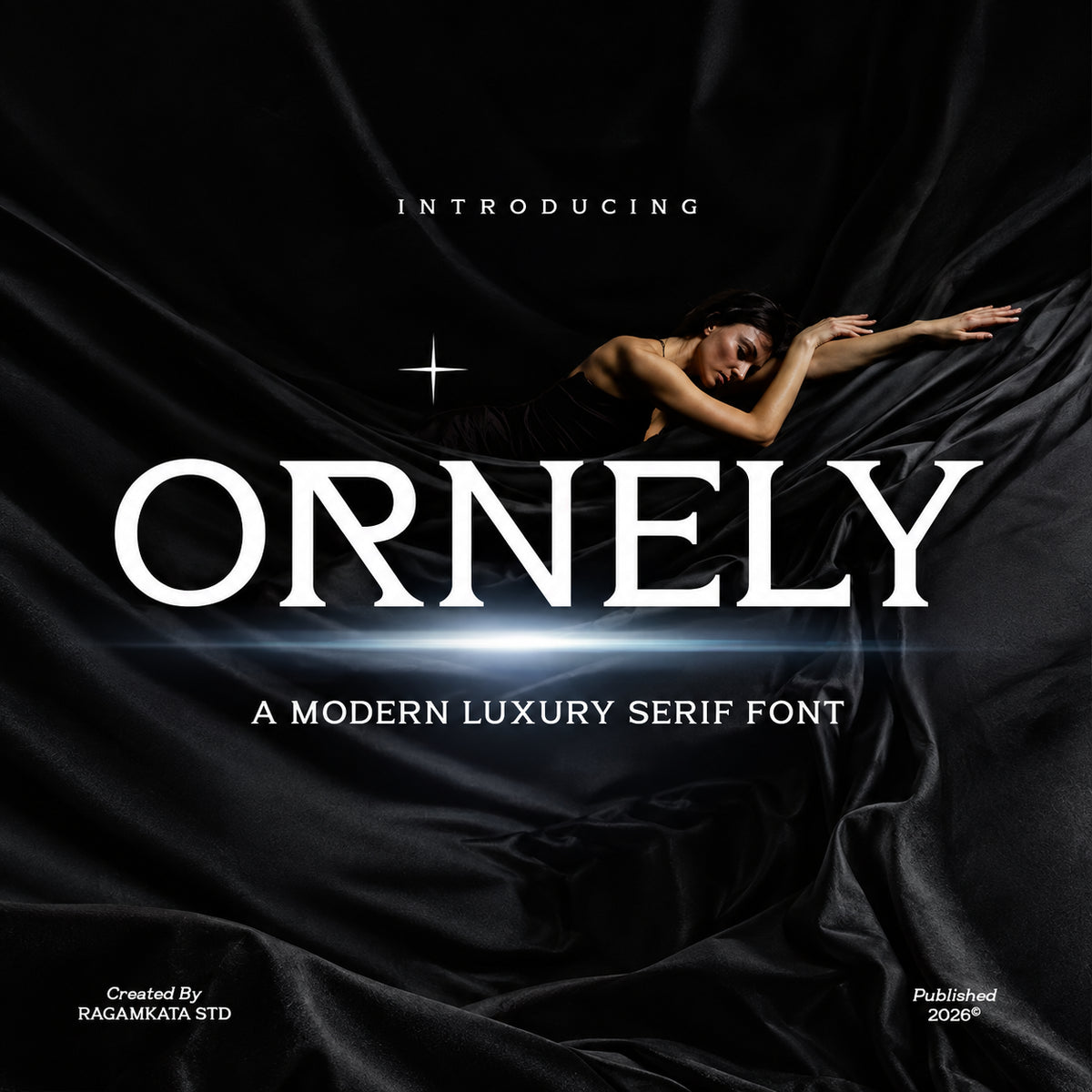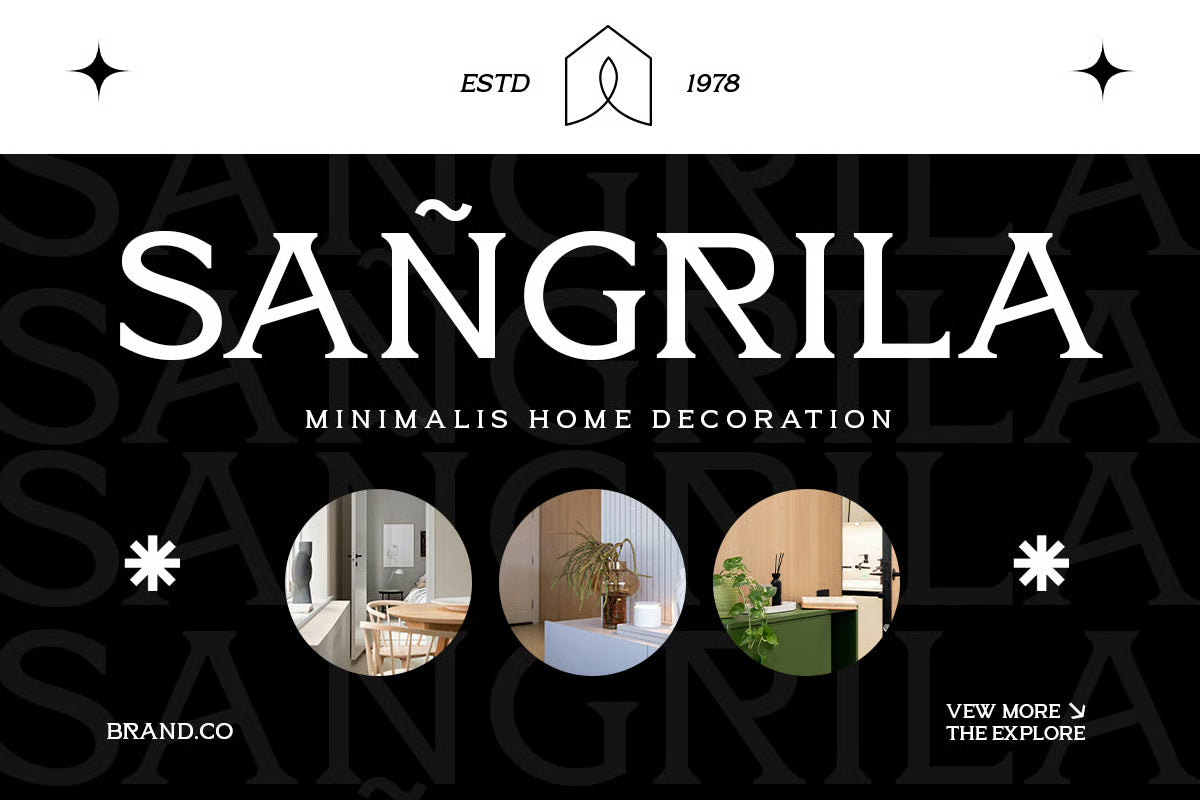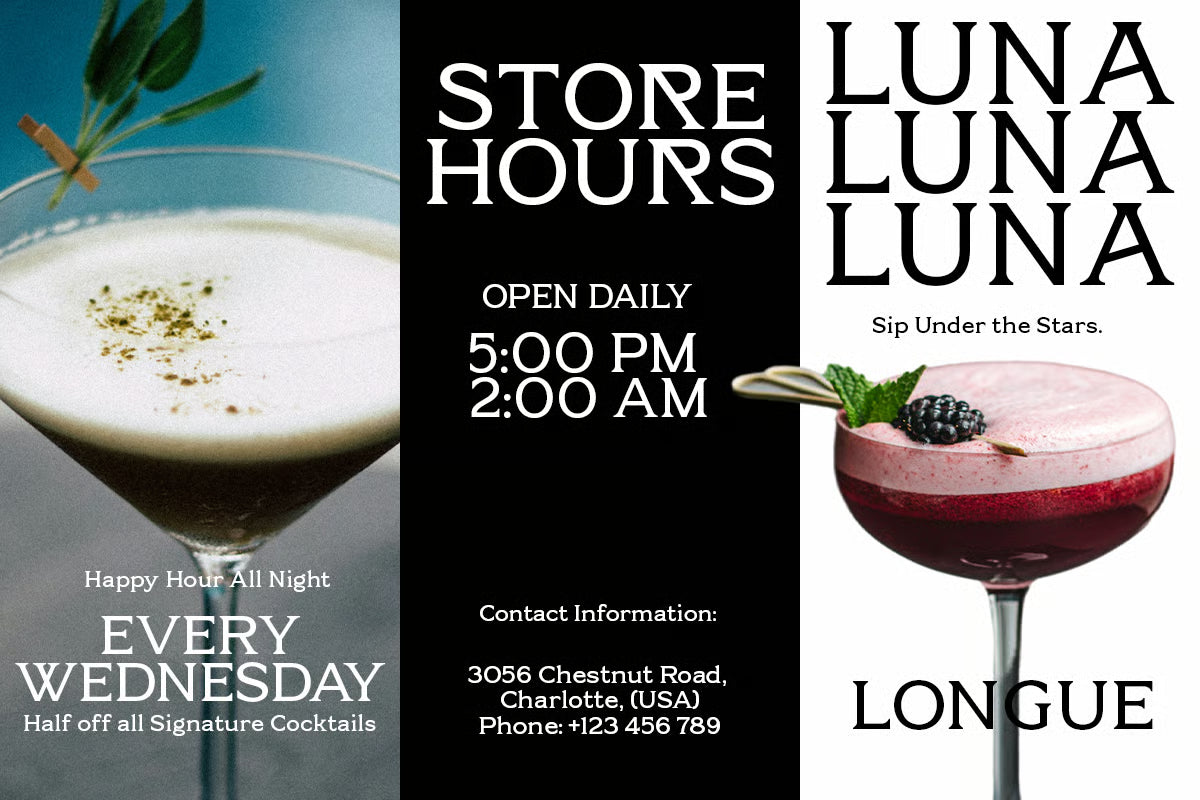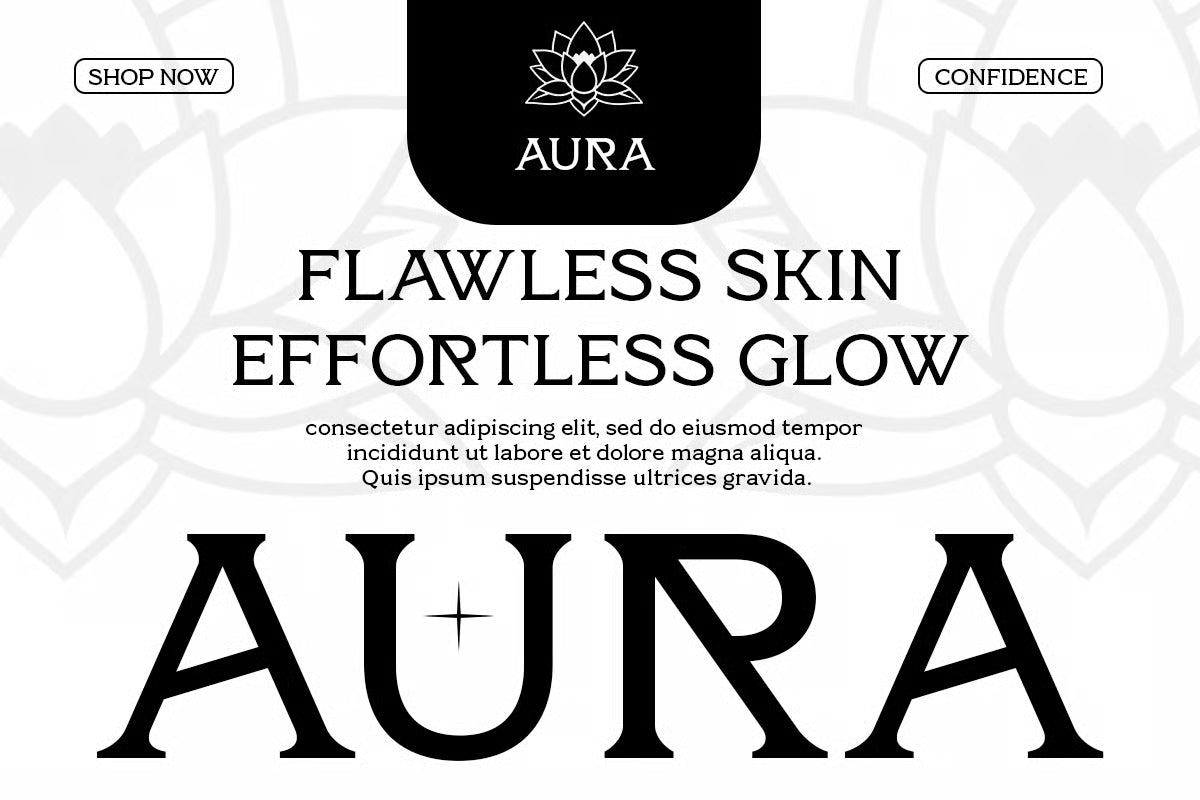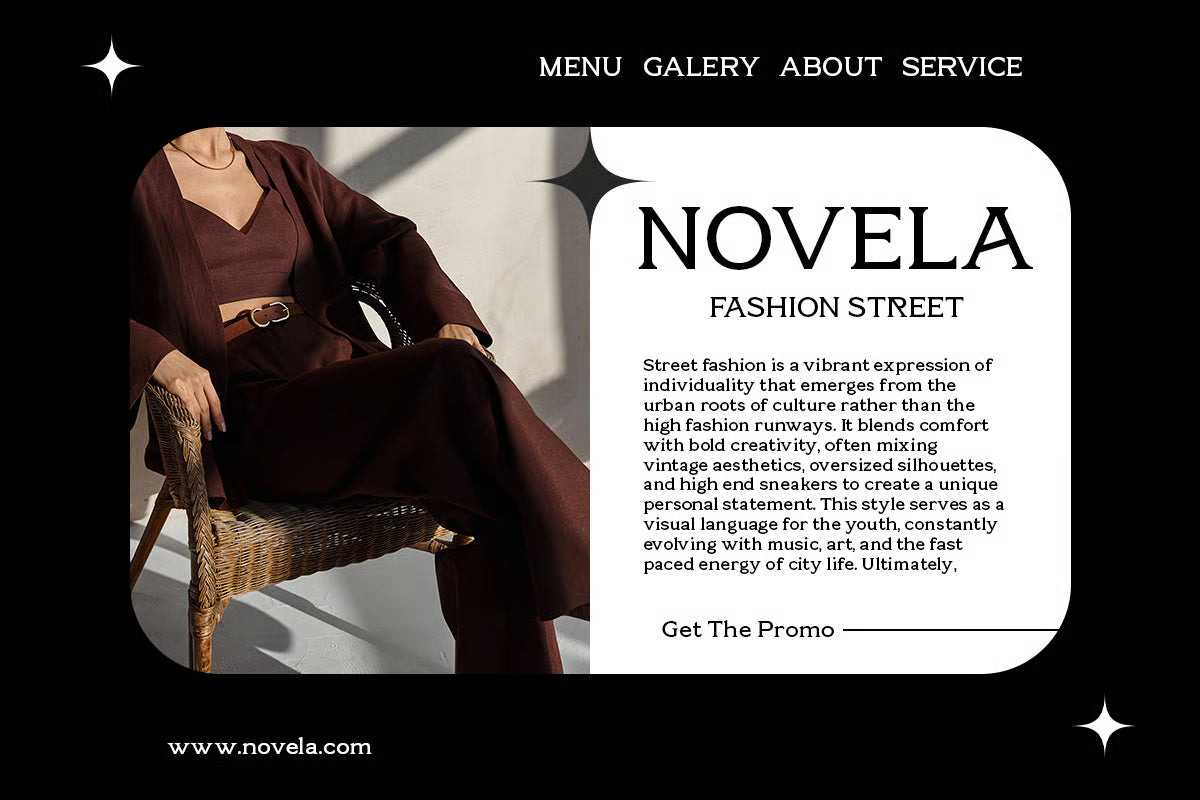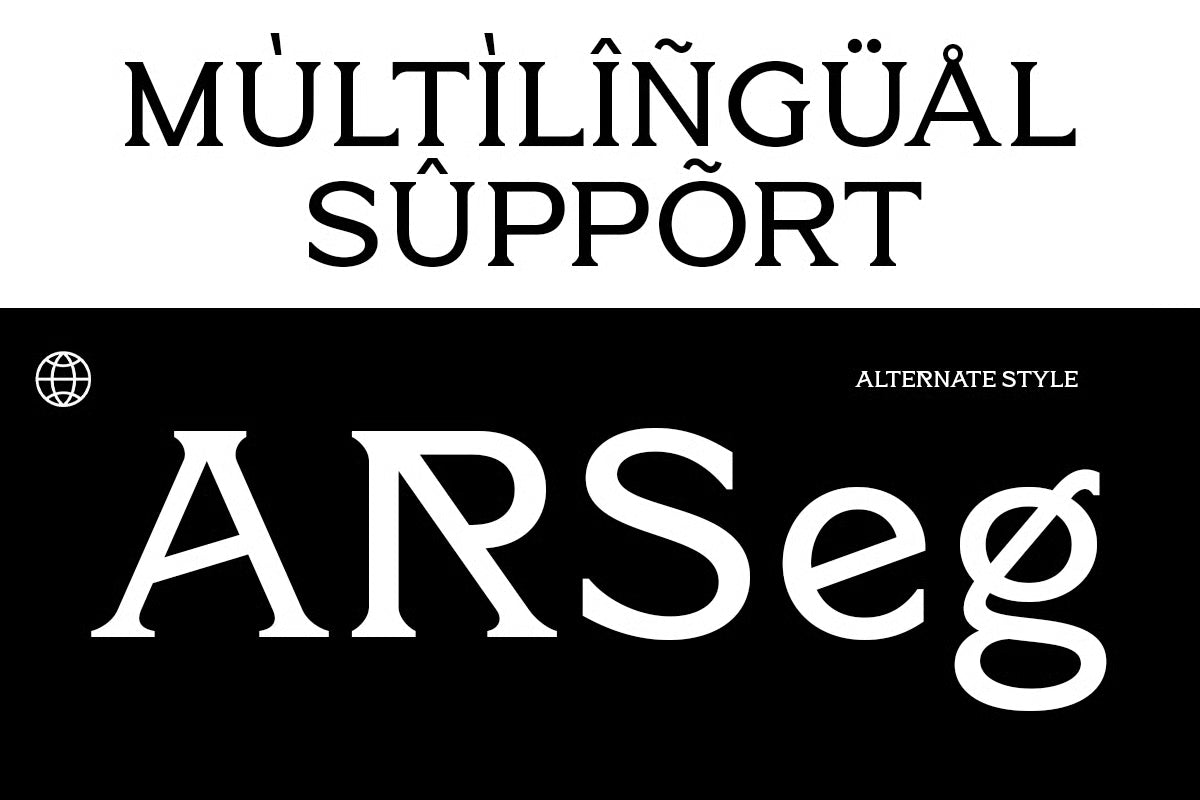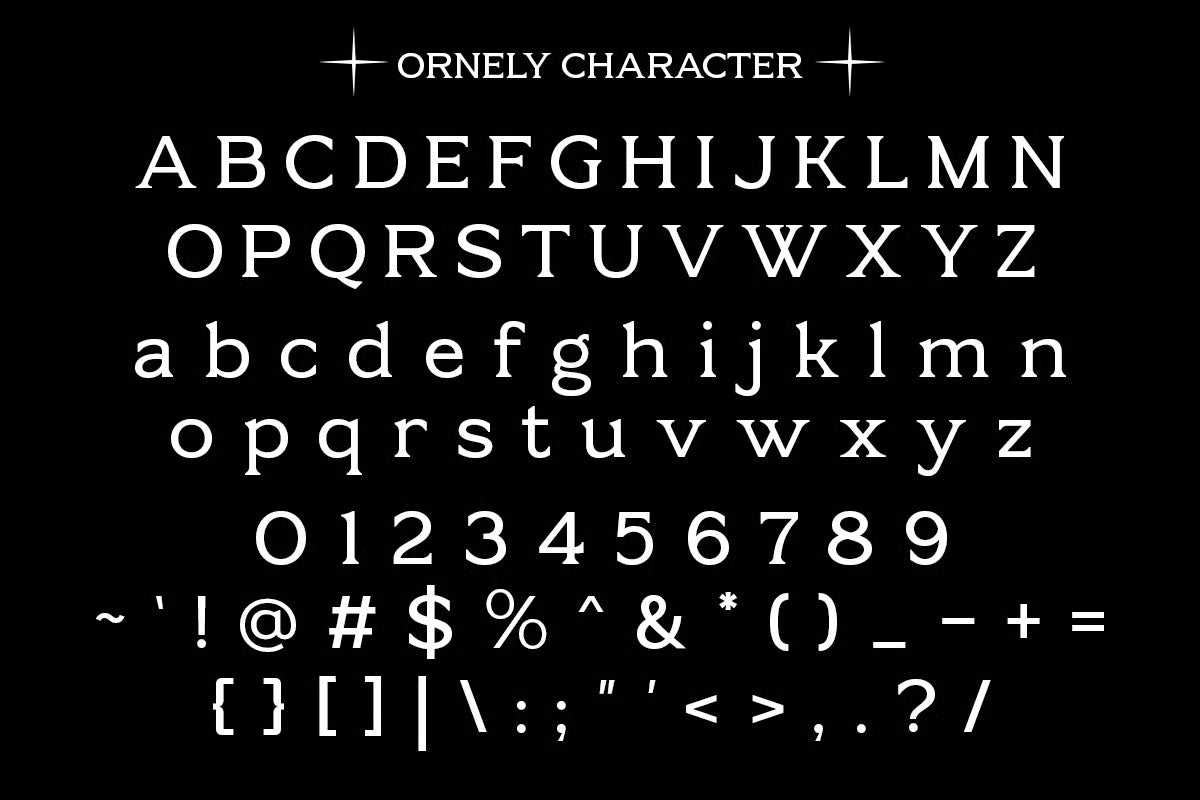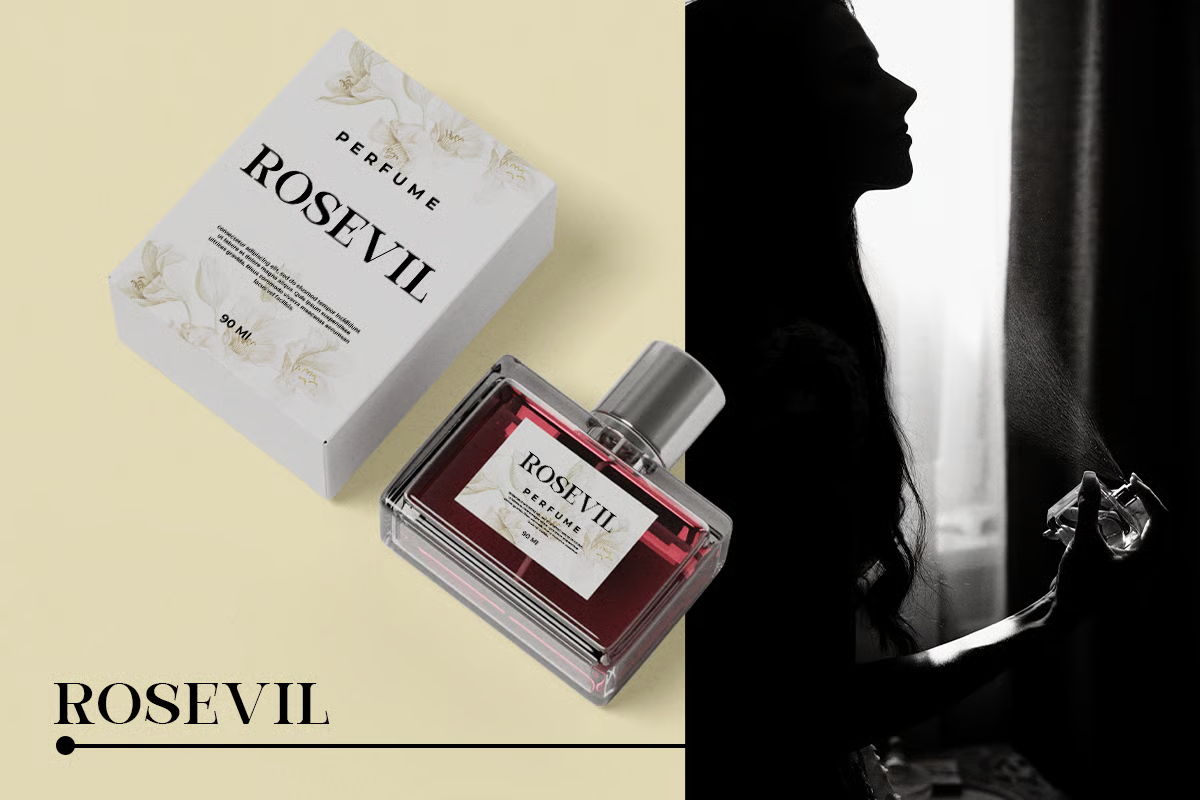
Ornely - Modern Luxury Serif Font
Ragamkata Studio
Ornely is a modern luxury serif font designed to express elegance, sophistication, and timeless beauty. With its refined serif details, balanced proportions, and graceful letterforms, Ornely delivers a premium typographic presence that instantly elevates any design. The combination of modern structure and classic serif aesthetics makes this font perfect for high-end visual identities.
Perfectly suited for luxury branding, fashion editorials, premium packaging, magazine layouts, logo design, wedding invitations, and elegant marketing materials. Ornely creates a strong yet graceful visual impression that captures attention while maintaining excellent readability across both digital and print applications.
Whether used for fashion labels, beauty brands, luxury product packaging, or editorial typography, Ornely brings sophistication and contemporary elegance into every letter. This font allows designers to create refined and visually striking designs with a timeless luxury aesthetic.
Special Alternates
Number, Symbols, and Punctuation
Ornely is a modern luxury serif font featuring Regular and Italic styles, special alternates, uppercase and lowercase characters, numbers, symbols, punctuation, and multilingual support. It is available in OTF, TTF, and WOFF formats.